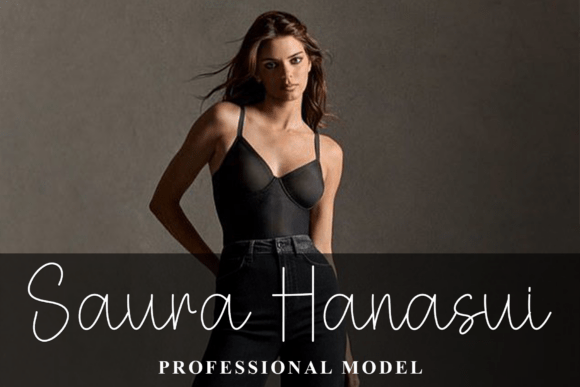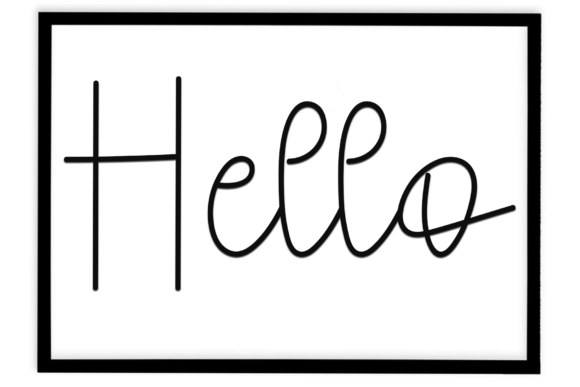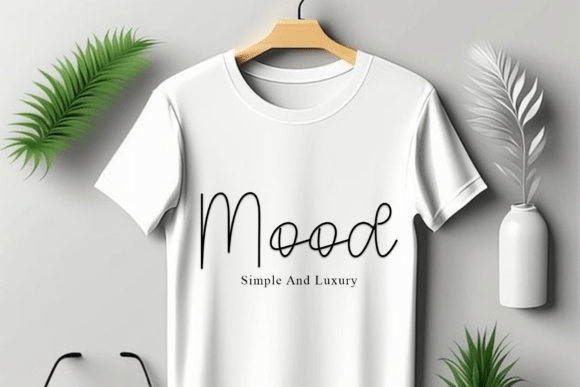
Introduction to Morning Farmhouse Font
Morning Farmhouse is a beautiful and eye-catching font designed with a soft, unique touch.
Its distinctive strokes give it a special character, making it meaningful and versatile for future use With various characters, it’s perfect for design projects, crafts, and other creative works.
Morning Farmhouse Font offers exceptional quality and versatility, making it a valuable addition to your design toolkit. Whether you’re creating for personal projects or commercial use, Morning Farmhouse Font delivers professional results.